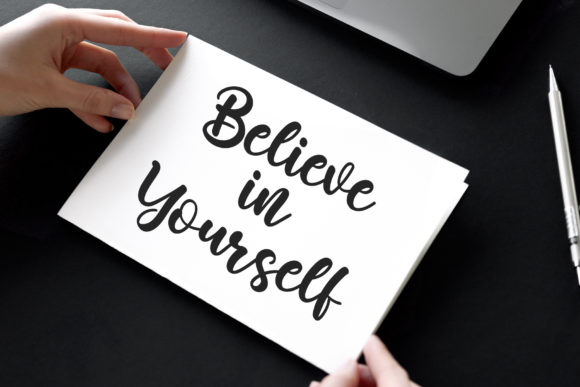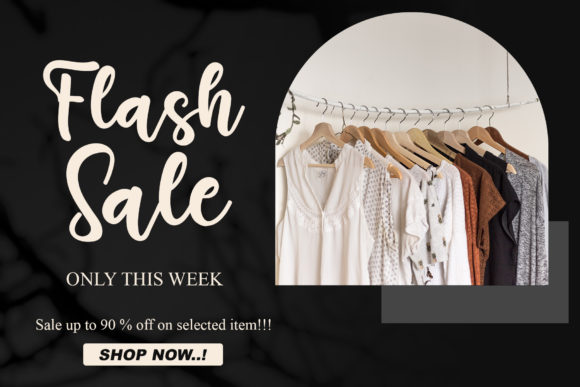
Black History Font
db-ku.com - Script & Handwritten -- Black History is a stunning work of art. This beautiful handwritten typeface is great for adding a personal touch to your designs. It is PUA encoded which means you can access all of the glyphs and swashes with ease!